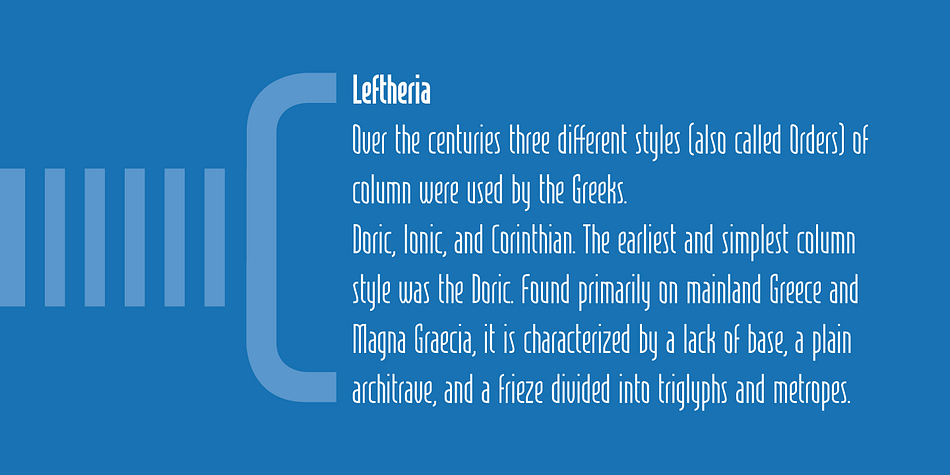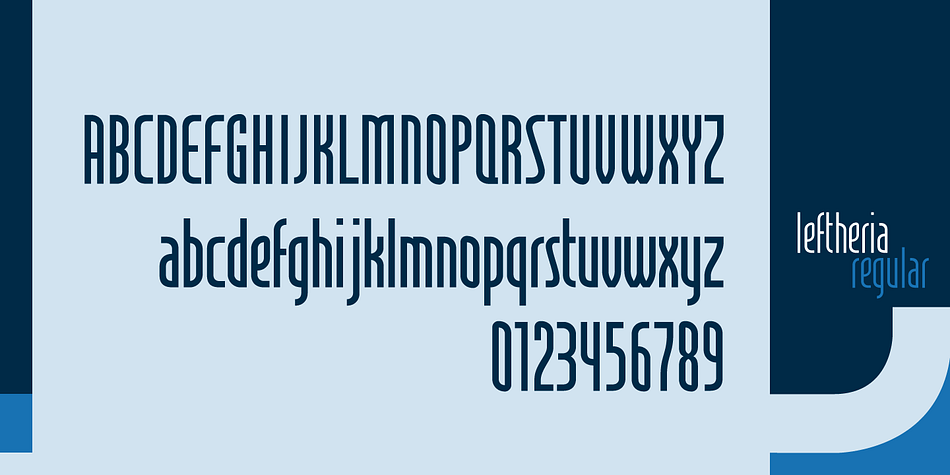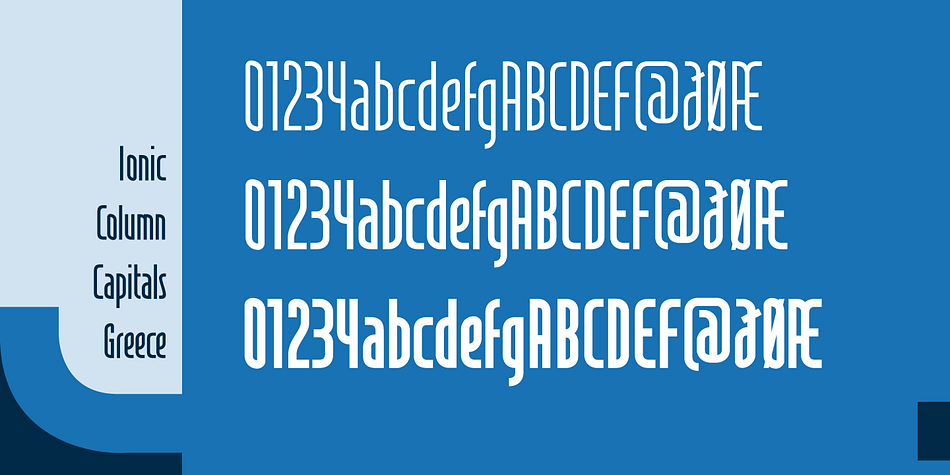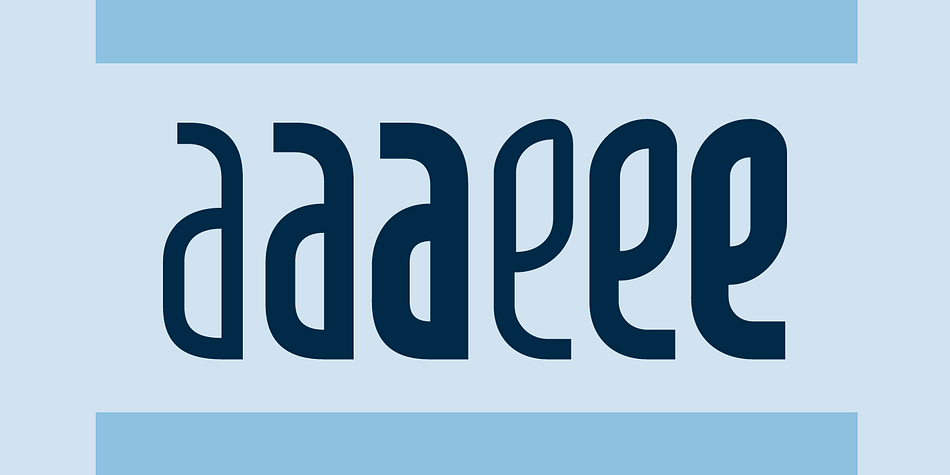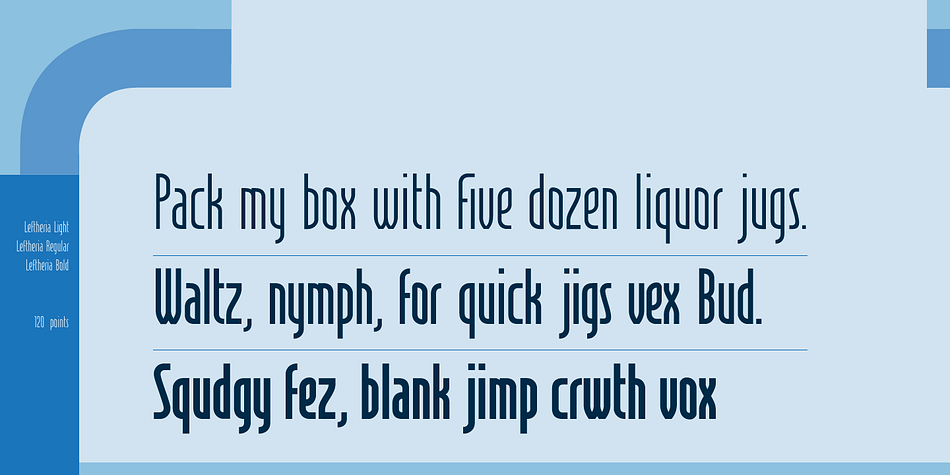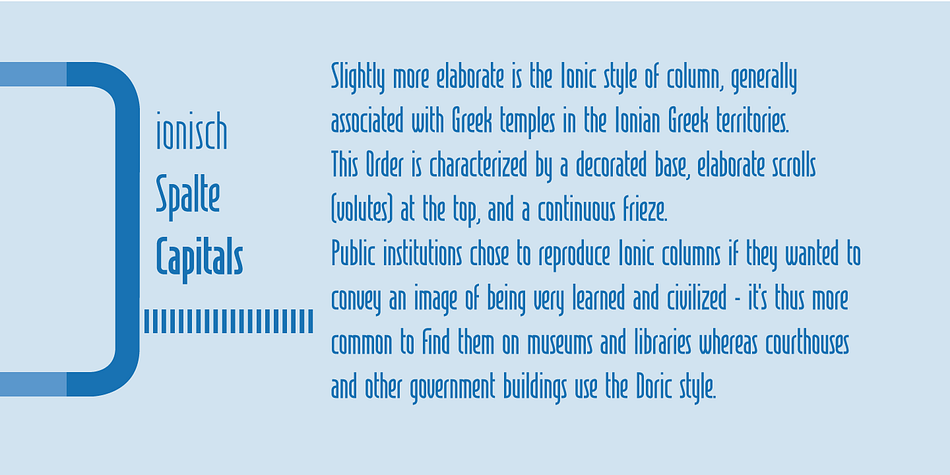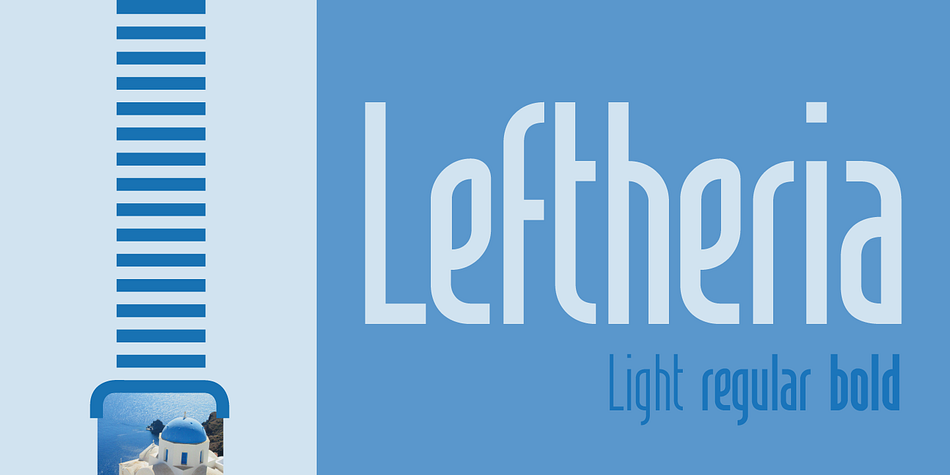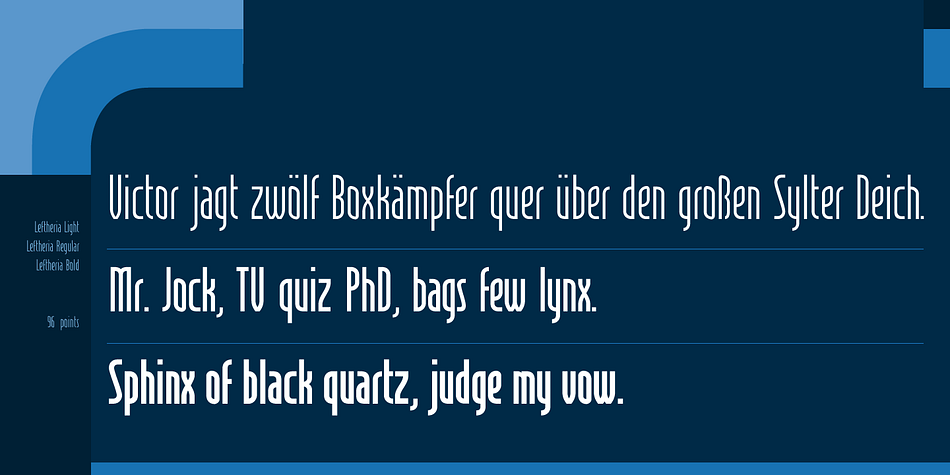
Leftheria is a display sans font family. This typeface has six styles and was published by Sea Types.
Leftheria structure is designed from the Greek order Ionic columns and their capitals, is a condensed typography with vertical emphasis.